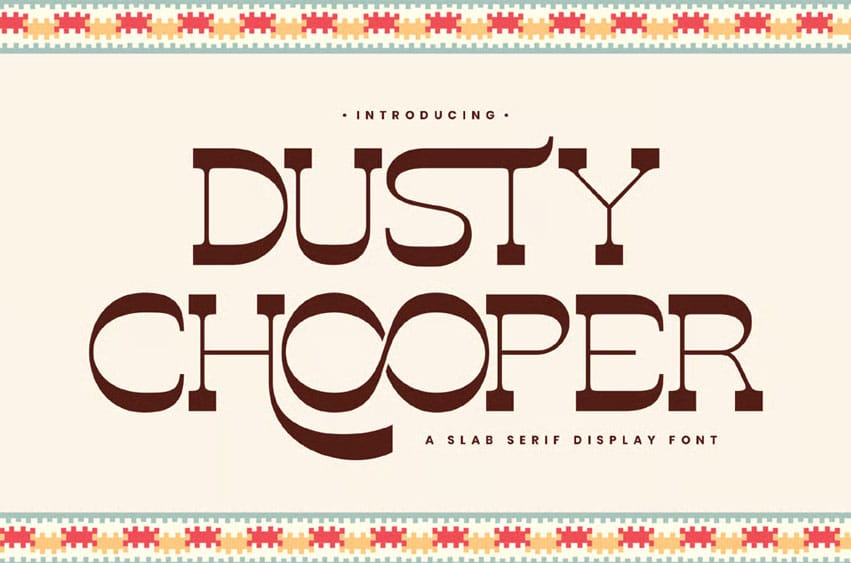
Dusty Chooper Font is a slab serif display font that combines boldness with a touch of rugged charm. With its thick, block-like serifs and strong structure, it delivers a vintage yet confident look that’s perfect for headlines, logos, signage, and retro-inspired branding. The font’s sturdy character evokes the spirit of classic Americana, making it ideal for projects that want to feel tough, handcrafted, and full of attitude. Whether used in motorcycle club graphics, old-school product labels, or standout posters, Dusty Chooper commands attention with every letter.